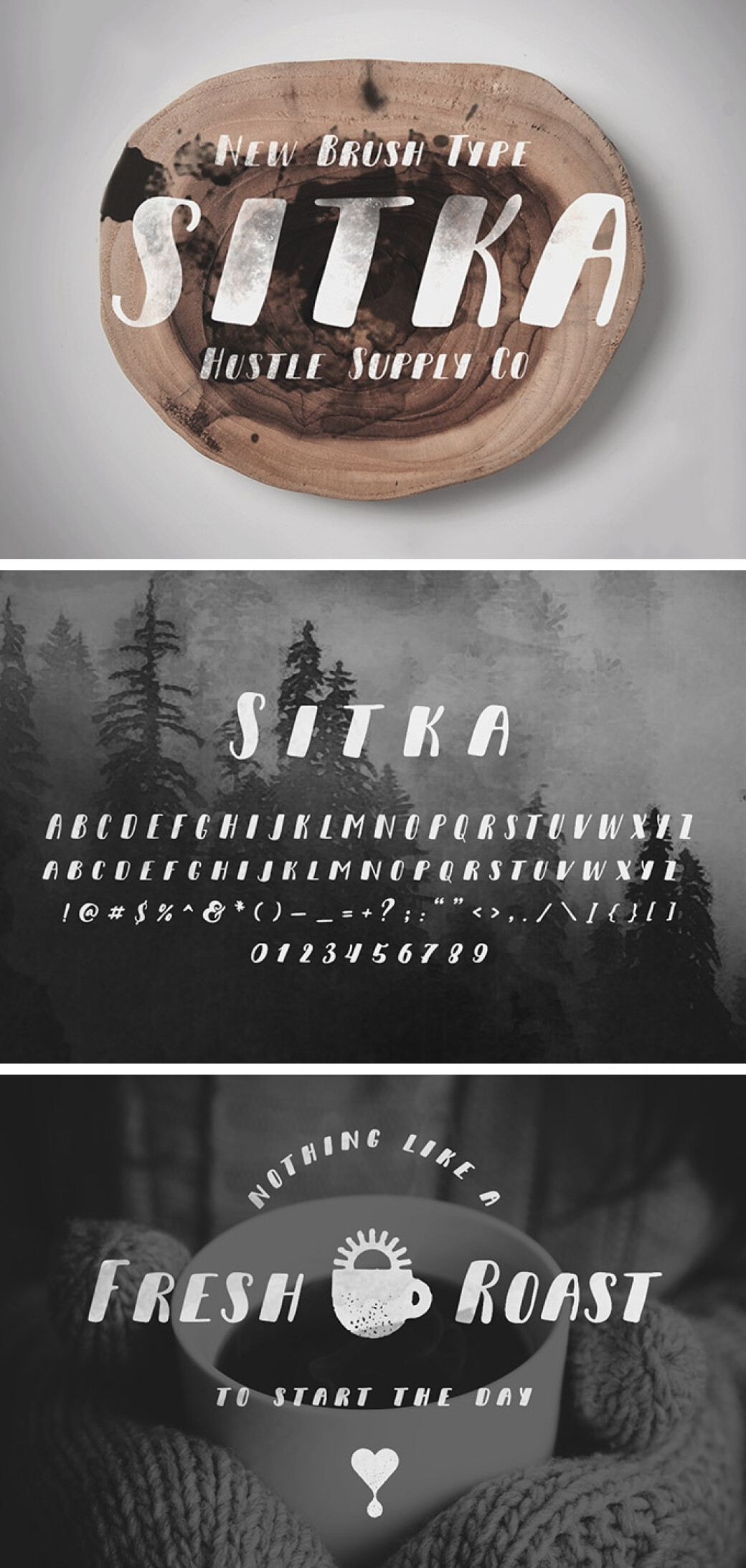
Sitka Brush Font
When Sitka is associated among ordinary people as a city in Alaska, we strongly picture this playful brush typeface right away! Why not, it's so quirky and aesthetically pleasing.
Sitka is perfectly imperfect, yet very versatile All-Caps typeface, featuring Uppercase and Small Caps. Also, the font comes with all standard Latin glyphs and in OTF format. It would be perfect for your logo designs, wedding Invitations, kids books, flyers, posters and so much more!